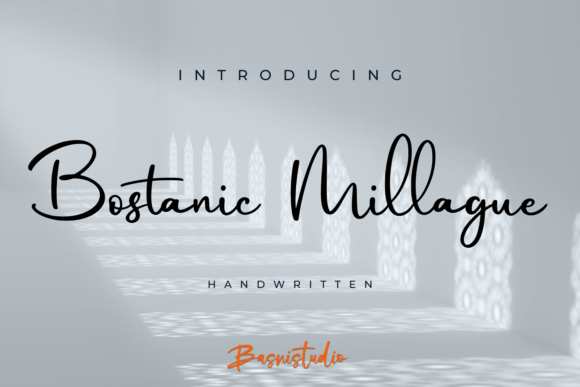
Bostanic Millague Font: Elevate Your Designs with Elegance and Character
In the world of typography, a well-crafted font can make all the difference in elevating your designs from ordinary to extraordinary. Introducing Bostanic Millague, a beautifully designed handwritten font that brings a touch of natural flair and precision to your branding, websites, and editorial projects. With its unique style and elegant character, Bostanic Millague is the perfect choice for designers looking to add a personal touch to their work.
The Story Behind Bostanic Millague
Bostanic Millague is more than just a font – it’s a reflection of the beauty and simplicity of handwritten typography. Crafted with precision and attention to detail, this font is designed to evoke a sense of natural elegance and sophistication. Whether you’re working on a branding project, website design, or editorial content, Bostanic Millague is the perfect choice for adding a touch of personality and character to your work.
Key Features of Bostanic Millague
- Handwritten with natural flair: Bostanic Millague is a handwritten font that captures the natural flow and movement of handwriting, making it perfect for adding a personal touch to your designs.
- Unique and elegant character: With its unique style and elegant character, Bostanic Millague is sure to make your projects stand out from the crowd.
- Perfect for branding and editorial designs: Whether you’re working on a logo, brochure, or website, Bostanic Millague is the perfect choice for adding a touch of sophistication and elegance to your designs.
- Highly versatile: Bostanic Millague is a highly versatile font that can be used for a wide range of design projects, from print to digital.
What Makes Bostanic Millague Stand Out
In a world where digital designs are becoming increasingly common, Bostanic Millague offers a refreshing alternative. Its handwritten style and natural flair make it perfect for designers looking to add a touch of personality and character to their work. Here are just a few reasons why Bostanic Millague stands out from the crowd:
- Unique style: Bostanic Millague has a unique style that is both elegant and sophisticated, making it perfect for adding a touch of personality to your designs.
- Attention to detail: Crafted with precision and attention to detail, Bostanic Millague is a font that is sure to impress.
- Flexibility: Whether you’re working on a branding project, website design, or editorial content, Bostanic Millague is a highly versatile font that can be used for a wide range of design projects.
How to Use Bostanic Millague in Your Designs
Using Bostanic Millague in your designs is easy. Here are just a few tips to get you started:
- Pair it with other fonts: Bostanic Millague can be paired with other fonts to create a unique and visually appealing design.
- Use it for headings and titles: Bostanic Millague is perfect for headings and titles, where its elegant character and natural flair can really shine.
- Add a personal touch: Use Bostanic Millague to add a personal touch to your designs, whether you’re working on a branding project, website design, or editorial content.
- Improved readability: Bostanic Millague is a highly readable font, making it perfect for online content.
- Increased engagement: With its elegant character and natural flair, Bostanic Millague can help increase engagement and encourage users to stay on your site longer.
- Better brand recognition: By using Bostanic Millague consistently across your branding and online presence, you can improve brand recognition and build a strong visual identity.
In conclusion, Bostanic Millague is a beautifully crafted handwritten font that is perfect for adding a personal touch to your designs. With its unique style, elegant character, and natural flair, Bostanic Millague is sure to make your projects stand out from the crowd. Whether you’re working on a branding project, website design, or editorial content, Bostanic Millague is a highly versatile font that can be used for a wide range of design projects.
- What is Bostanic Millague? Bostanic Millague is a beautifully crafted handwritten font made with natural flair and precision.
- What is Bostanic Millague used for? Bostanic Millague is perfect for adding a personal touch to branding, websites, and editorial designs.
- Is Bostanic Millague easy to read? Yes, Bostanic Millague is a highly readable font, making it perfect for online content.